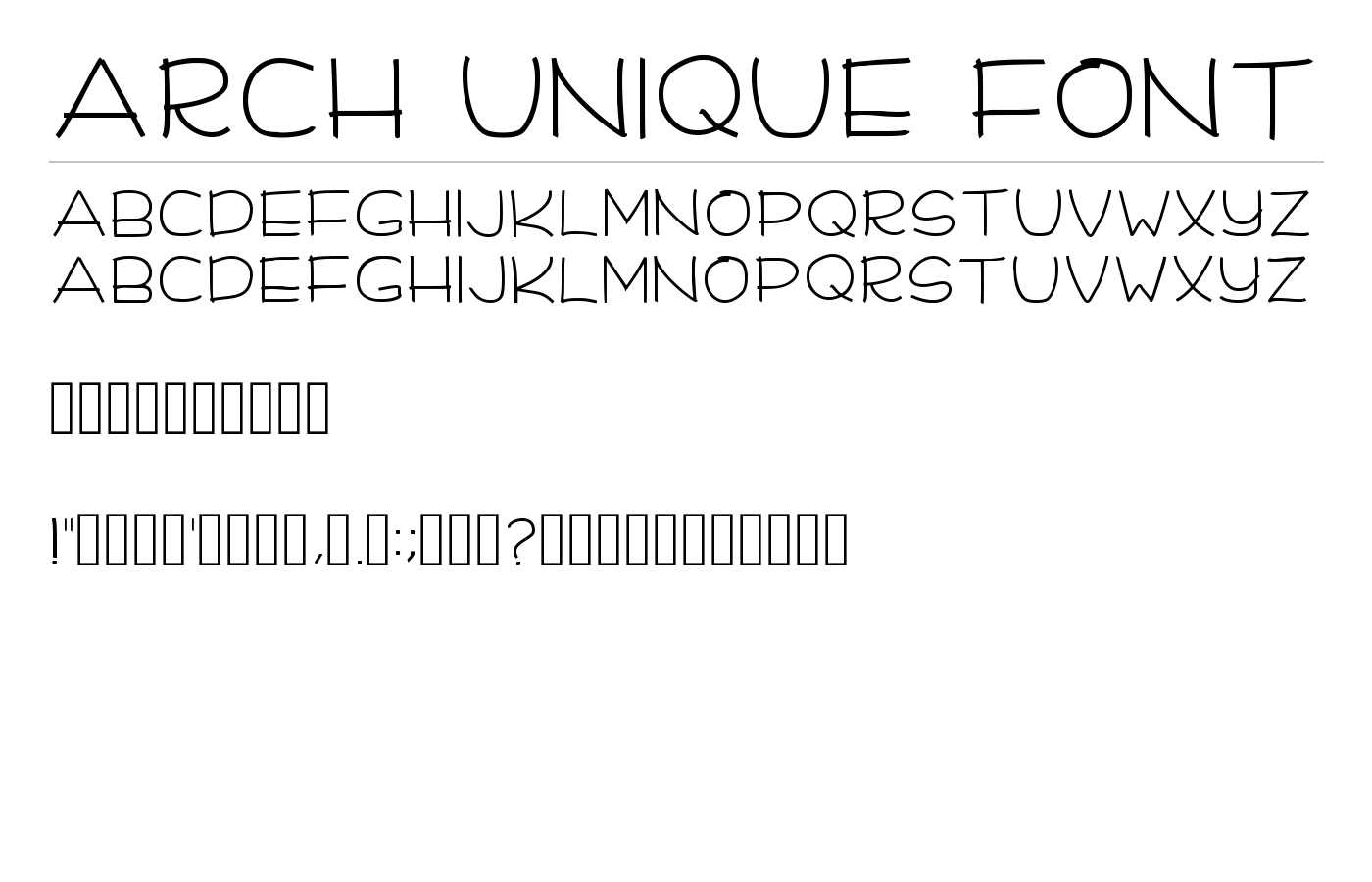
Arch Unique is a playful and distinctive sans serif font featuring thin, slightly irregular strokes that give it a hand-drawn, casual feel. With its tall x-height and open letterforms, it works well for creative projects, children’s books, and informal branding where a friendly and approachable style is desired. This font shines in headlines, logos, and packaging that seek a quirky, artistic touch without sacrificing readability.
Arch Unique Font